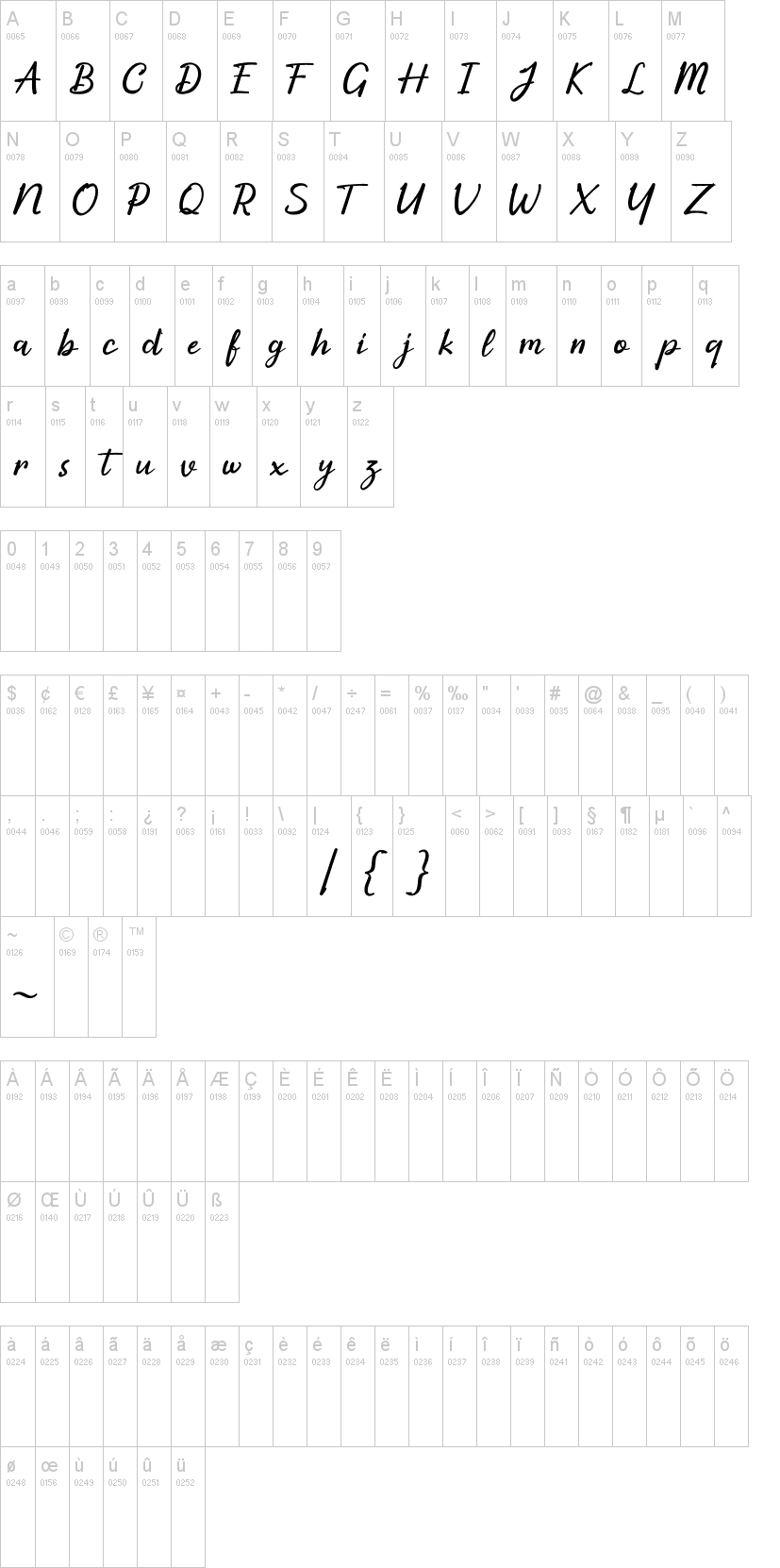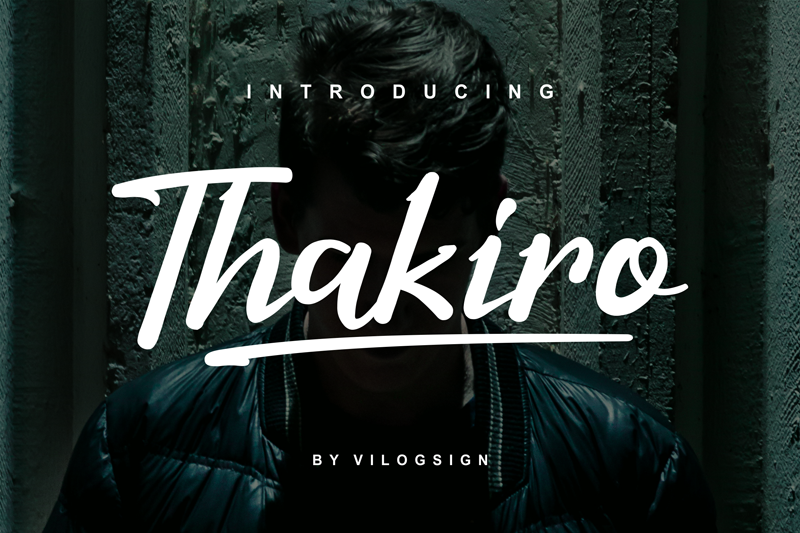
Thakiro
Note of the authorHi everyone,,, Introducing new my font "Thakiro" is Modern Script font. This collection of scripts is perfect for make a logo, brand, magazine, poster, stationery design, business card, and others.